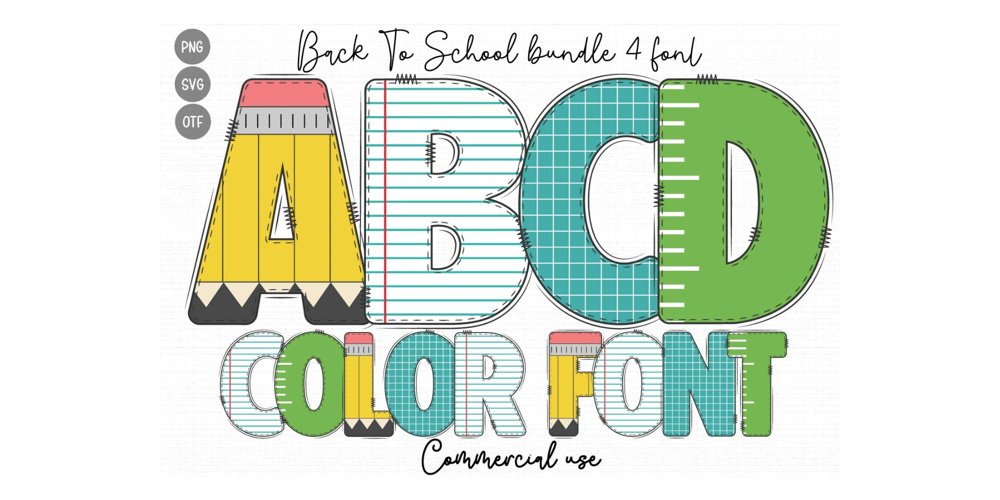
Back To School
Back To School font
Back To School Font Family was designed by phongsakon phonkhammak and published by MDF. Back To School contains 4 styles and family package options. The Back to School Doodle font is a delightful and imaginative typeface that captures the essence of the back-to-school season with its playful doodles and vibrant charm. Each letter is adorned with whimsical illustrations, reminiscent of a child’s doodles on a classroom desk. This font features hand-drawn characters filled with fun and colorful details. From doodled stars, pencils, and books to playful arrows, apples, and globes, every letter is an artwork in itself. The doodles add a sense of excitement and creativity to the font, making it perfect for capturing the spirit of going back to school.